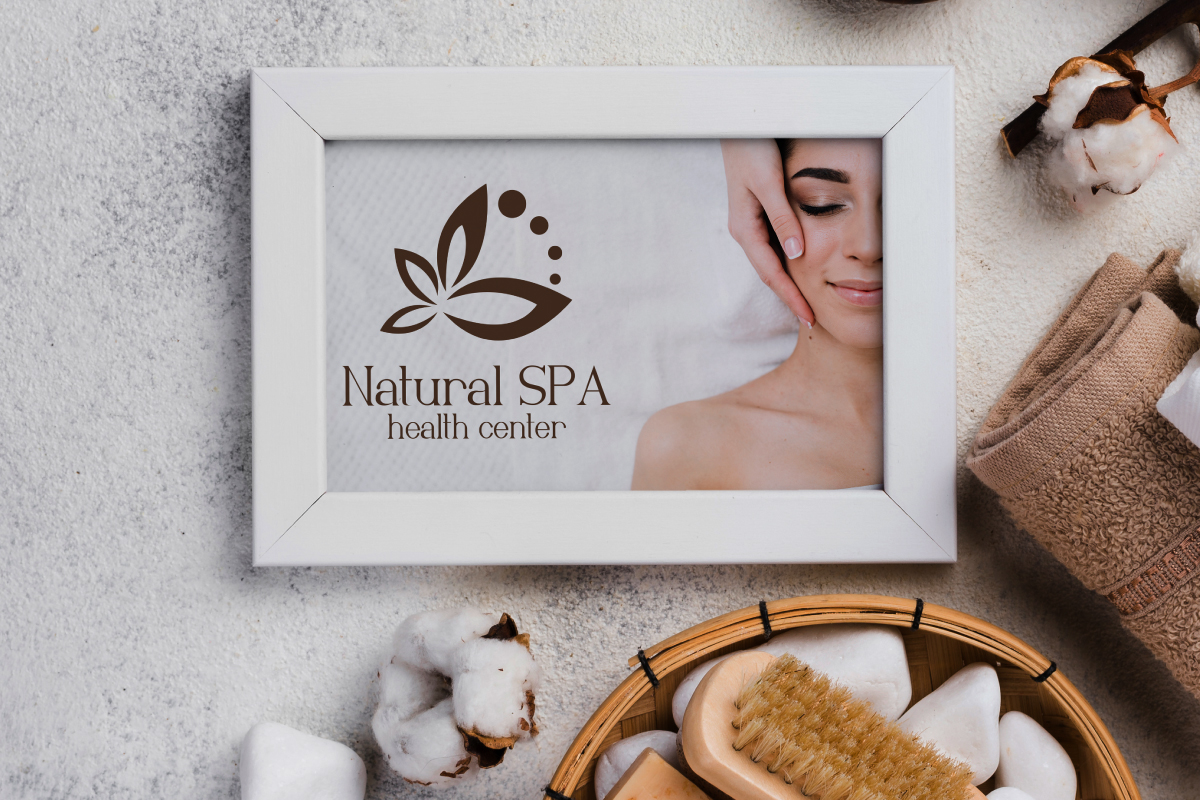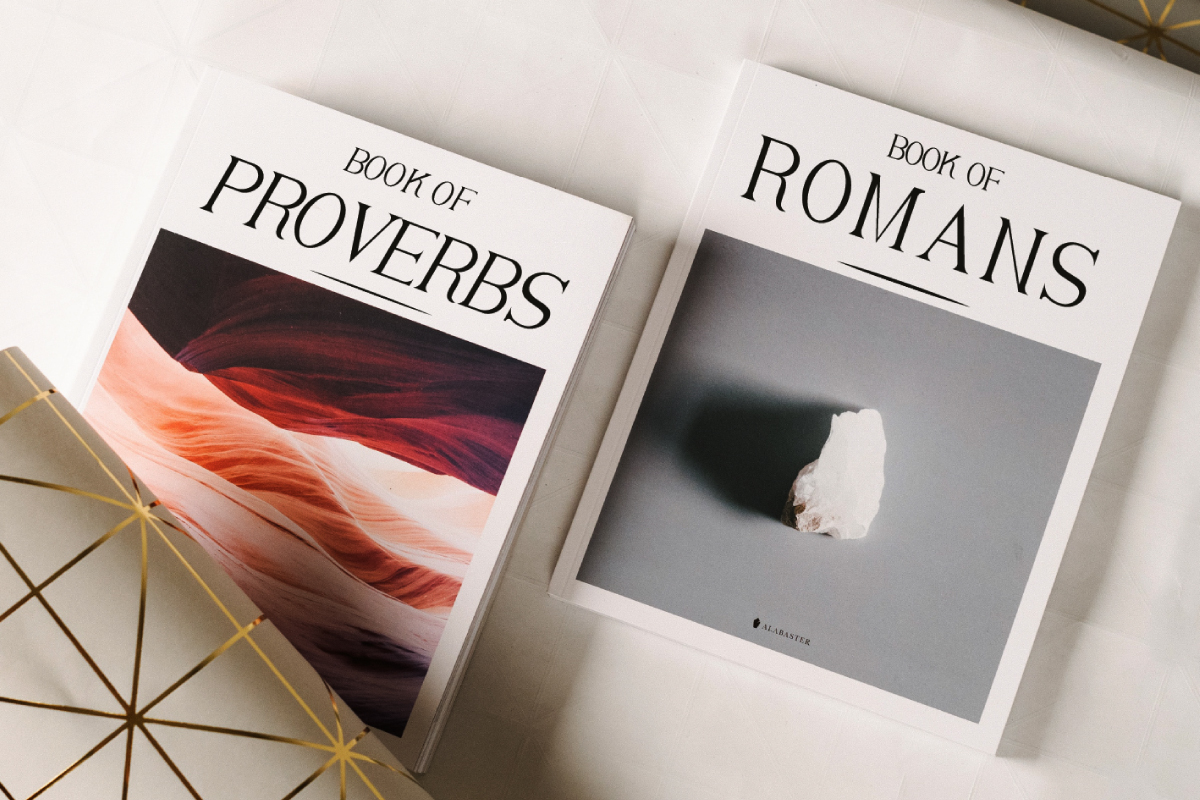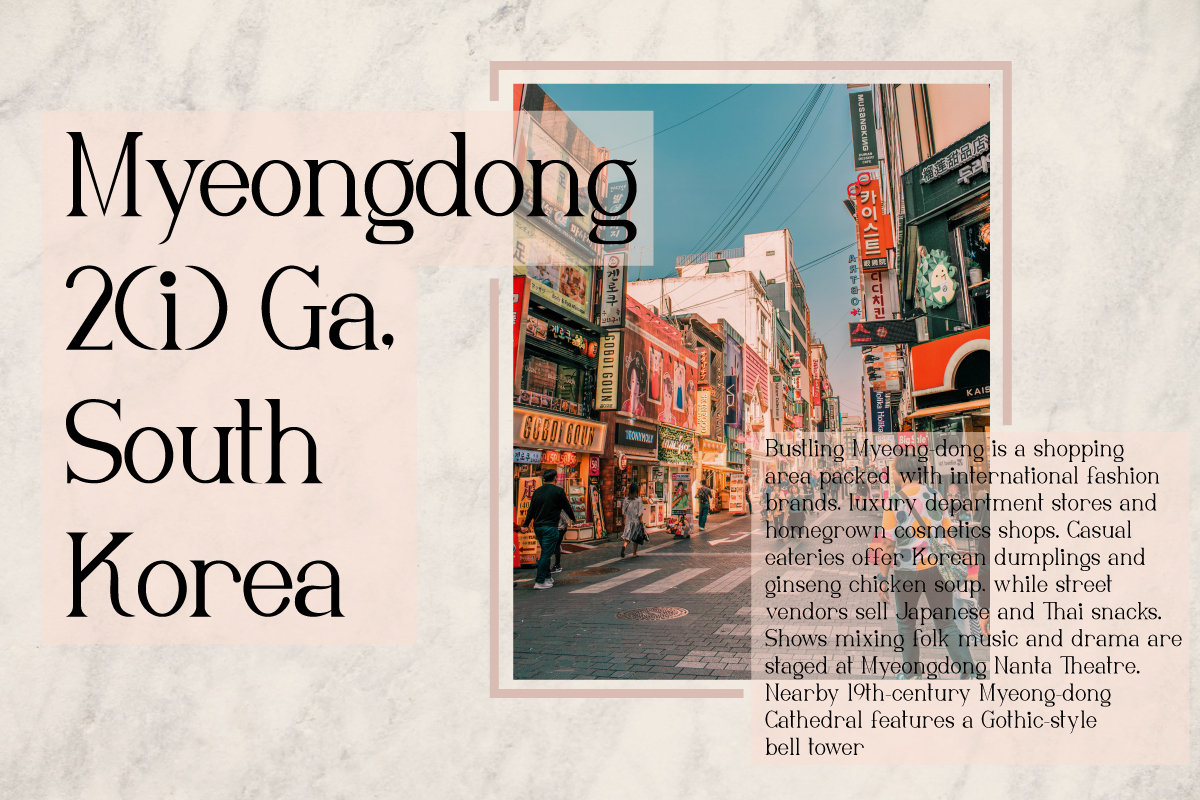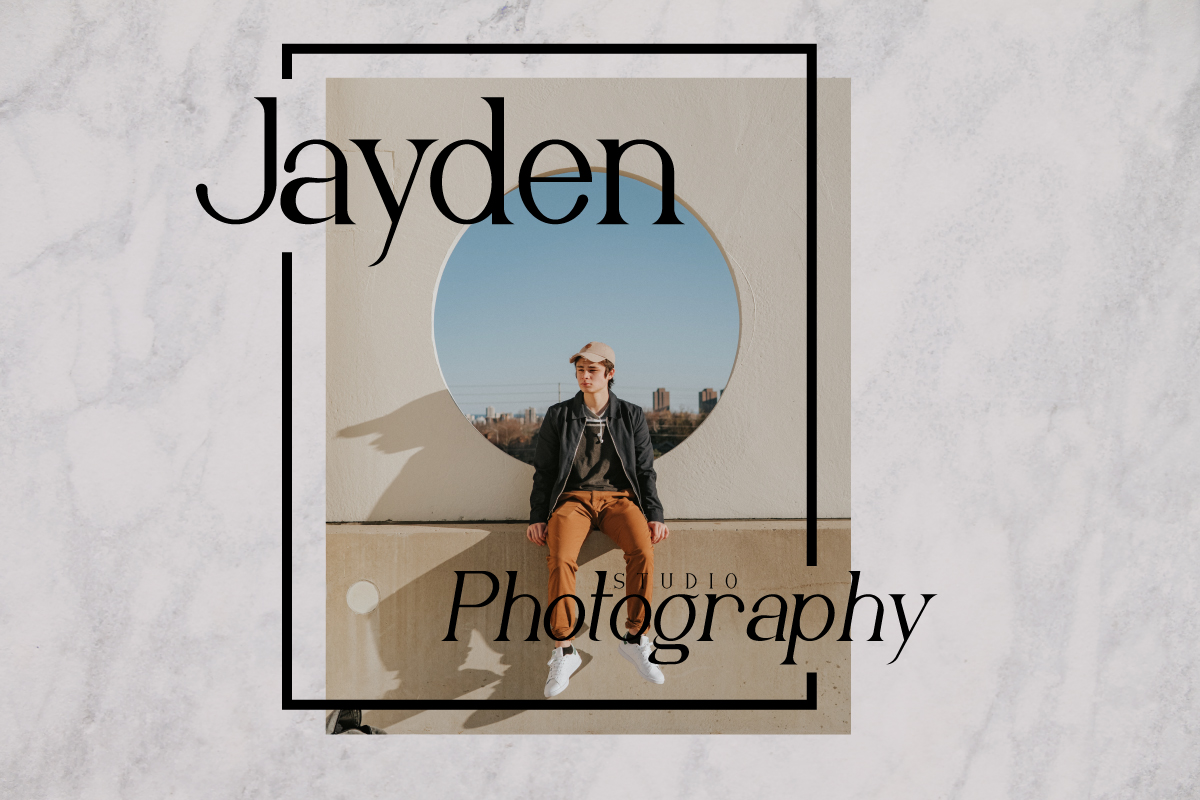
Rowan Berry Font
Rowan Berry Serif Font
This font is designed by RaisProject team in Indonesia. The font is great for any your projects including :brandings, advertising, magazine, signage, invitation, stationery, social media posts, label, or and any projects that need unique minimal style. The industries for this font is Finance, fintech, Startup, Automotive, Apps, Cosmetic, Beauty, Technology, Game, Magazine, Music, Sport etc
Rowan Berry Serif Font comes with two styles : Regular and Italic. The font includes full set of gorgeous uppercase and lowercase letters ,numerals and Multi languages characters. The font also come with artistic ligatures to make it looks really great and unique.